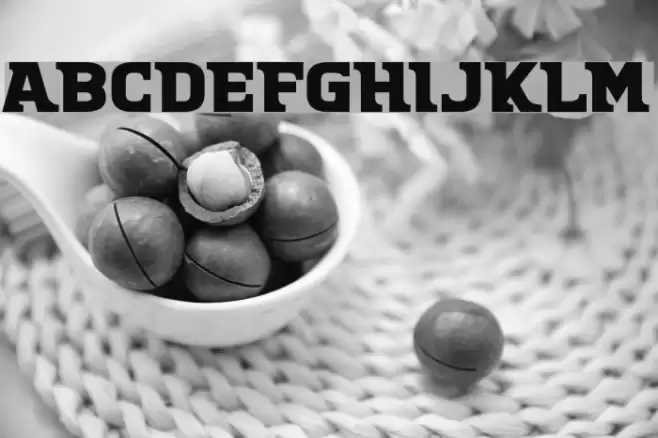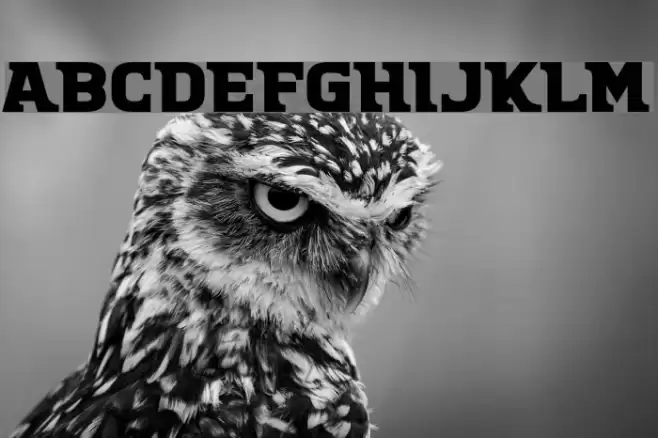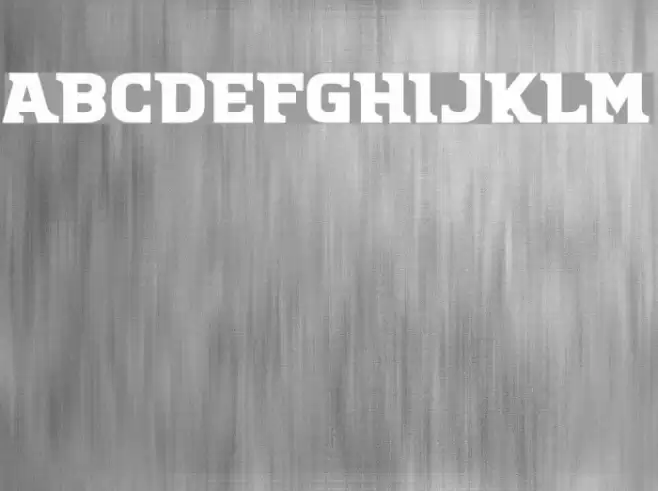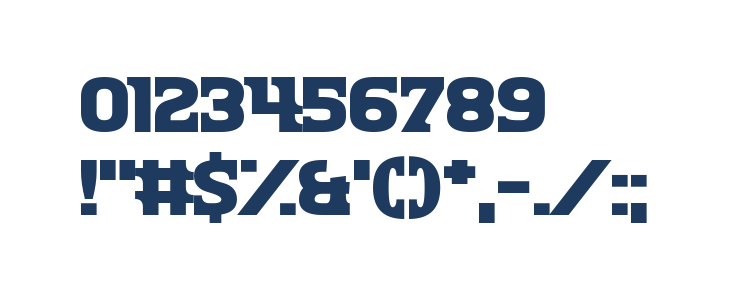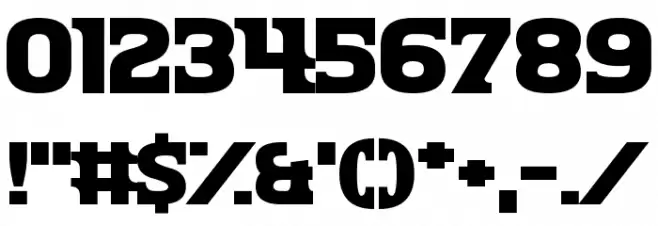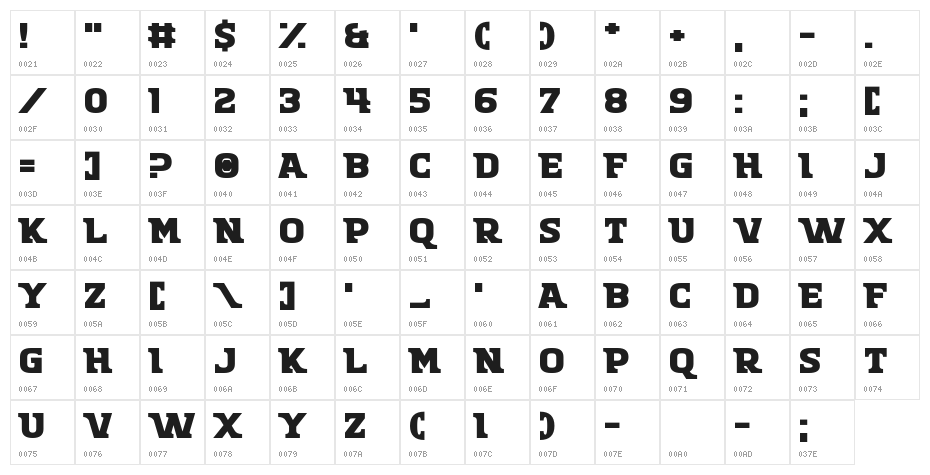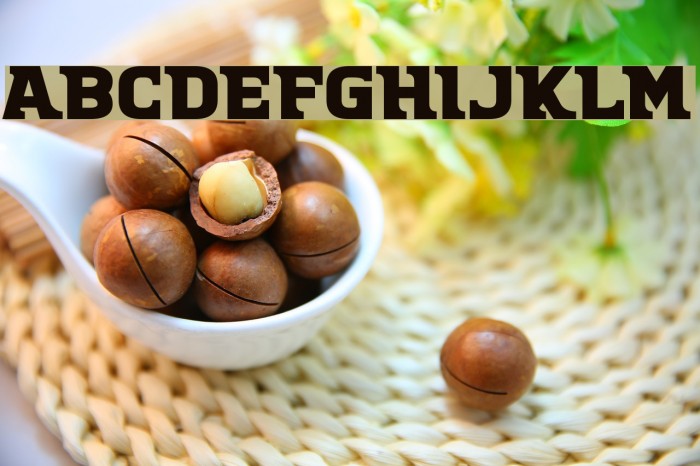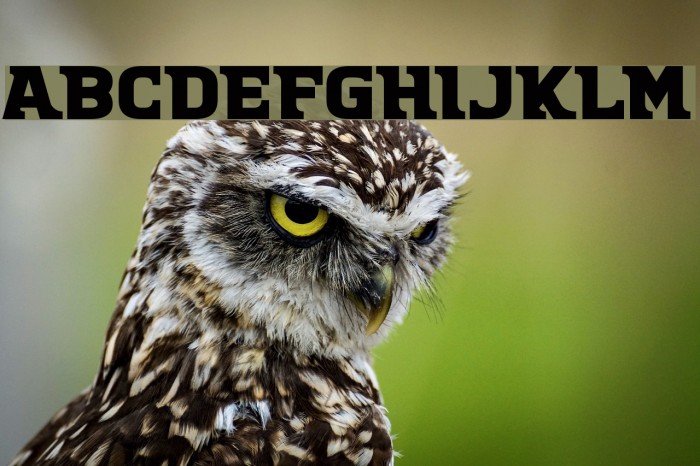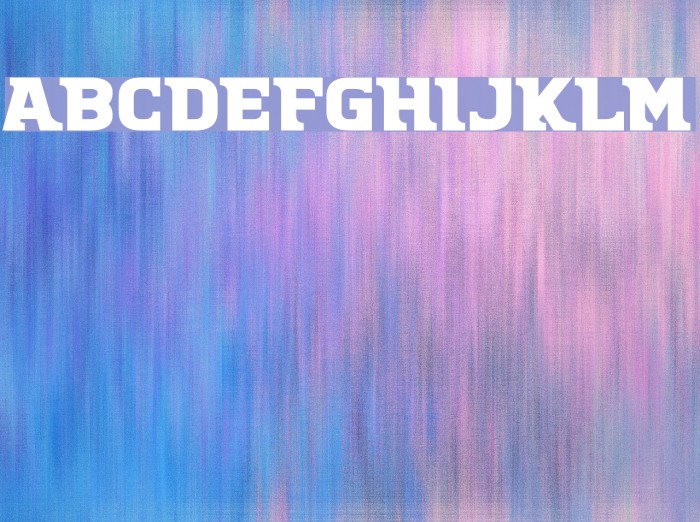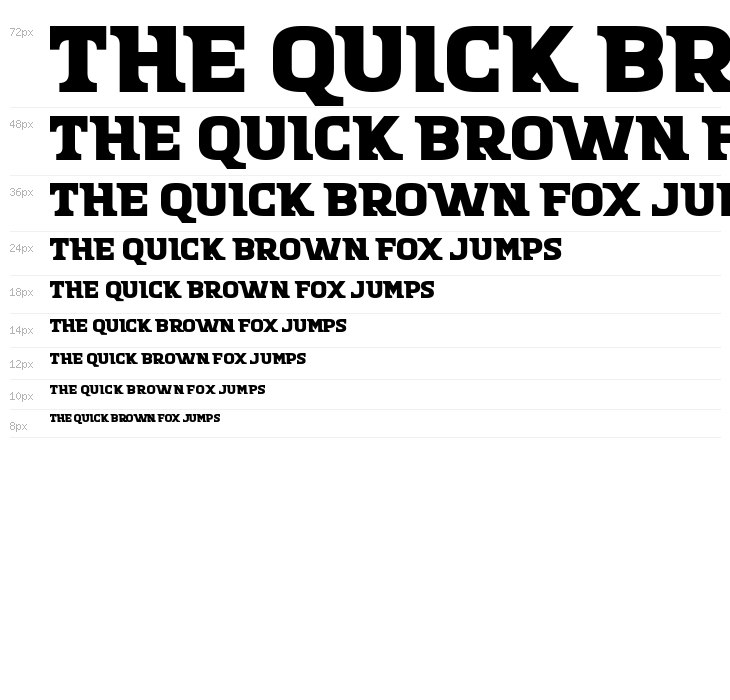
This font features a bold and robust design with strong, thick strokes that convey a sense of power and stability. The characters are uniformly wide, giving them a blocky appearance that is both modern and assertive. The uppercase letters are particularly striking, with sharp angles and a consistent height that enhances readability. The numerals are equally bold, maintaining the font's overall aesthetic. Special characters are designed to match the boldness of the letters and numbers, ensuring a cohesive look across all text elements. The font's style is reminiscent of industrial or sports-themed designs, making it suitable for impactful headlines and attention-grabbing displays.
A bold, modern font with strong, thick strokes and a blocky appearance from Uncategorized fonts.
- Proposed Projects: Ideal for sports branding, industrial-themed designs, posters, and bold headlines.